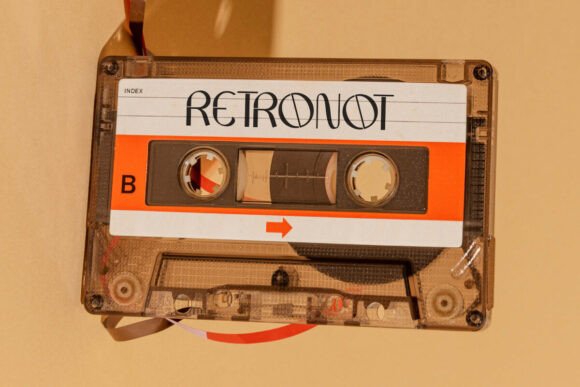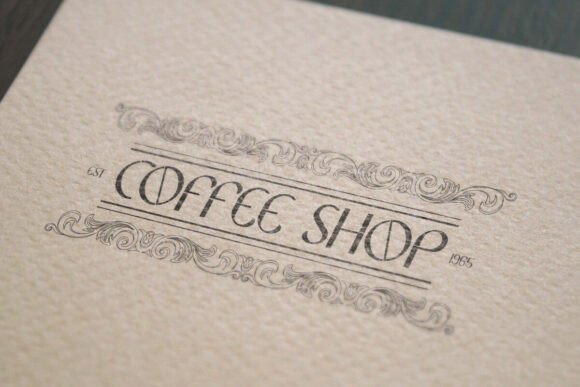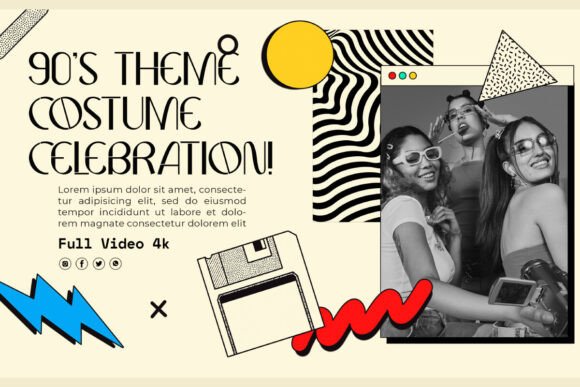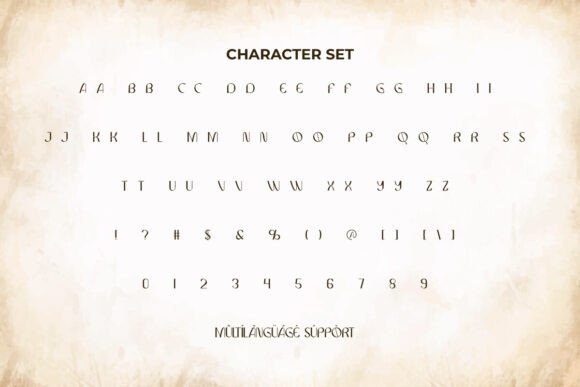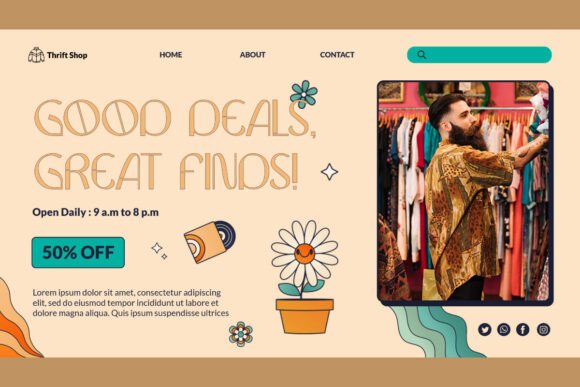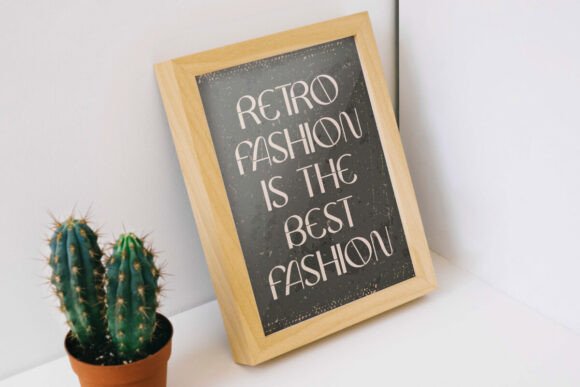
Introduction to Retronot Font
Do you ever find yourself stuck in a design rut, yearning for a blast from the past to add some excitement to your creative project? I know I do. Sometimes, all it takes is a font with the perfect retro flair to transport us to a bygone era and spark our imagination. That’s exactly what the Retronot Font does – it’s a retro galaxy-themed display font that’s sure to take your designs to the next level.
As a designer, you’re constantly on the lookout for high-quality design resources that can help you stand out from the crowd. The Retronot Font is one such treasure, offering a unique blend of style and sophistication that’s perfect for everything from brand logos to custom designs. And the best part? It’s available for free download, making it an accessible addition to any creative project.
Key Features of Retronot Font
- Unique blend of futuristic and retro elements, making it ideal for creative projects.
- Perfect for designers working on futuristic, sci-fi, or retro-themed projects, offering a distinctive and eye-catching visual style.
Honest Review: Retronot Font
One of the things that stands out about the Retronot Font is its high quality and versatility. It’s perfect for use on a transparent background, which makes it ideal for creating visually appealing graphics and designs.
Here are some things that work well with the Retronot Font:
- ✨ Wide range of styles and weights, making it perfect for creating complex designs
- ✨ Smooth, clean lines that make it easy to read and understand
However, I did encounter a few limitations while working with the Retronot Font:
- ⚠️ Limited support for certain special characters and symbols
- ⚠️ Not ideal for use in small font sizes, as it can become difficult to read
Overall, I’m really impressed with the Retronot Font. It’s a great addition to any design resource, and I would definitely recommend it to fellow designers working on creative projects.
Tips for Getting the Most Out of Retronot Font
For the best results, use the Retronot Font in conjunction with other design elements, such as graphics and textures. Experiment with different font sizes and styles to create a unique visual identity.
Common Use Cases for Retronot Font
The Retronot Font is perfect for creative projects, such as logos, posters, and social media graphics. Its unique design and high-quality aesthetic make it an ideal choice for designers and non-designers alike.